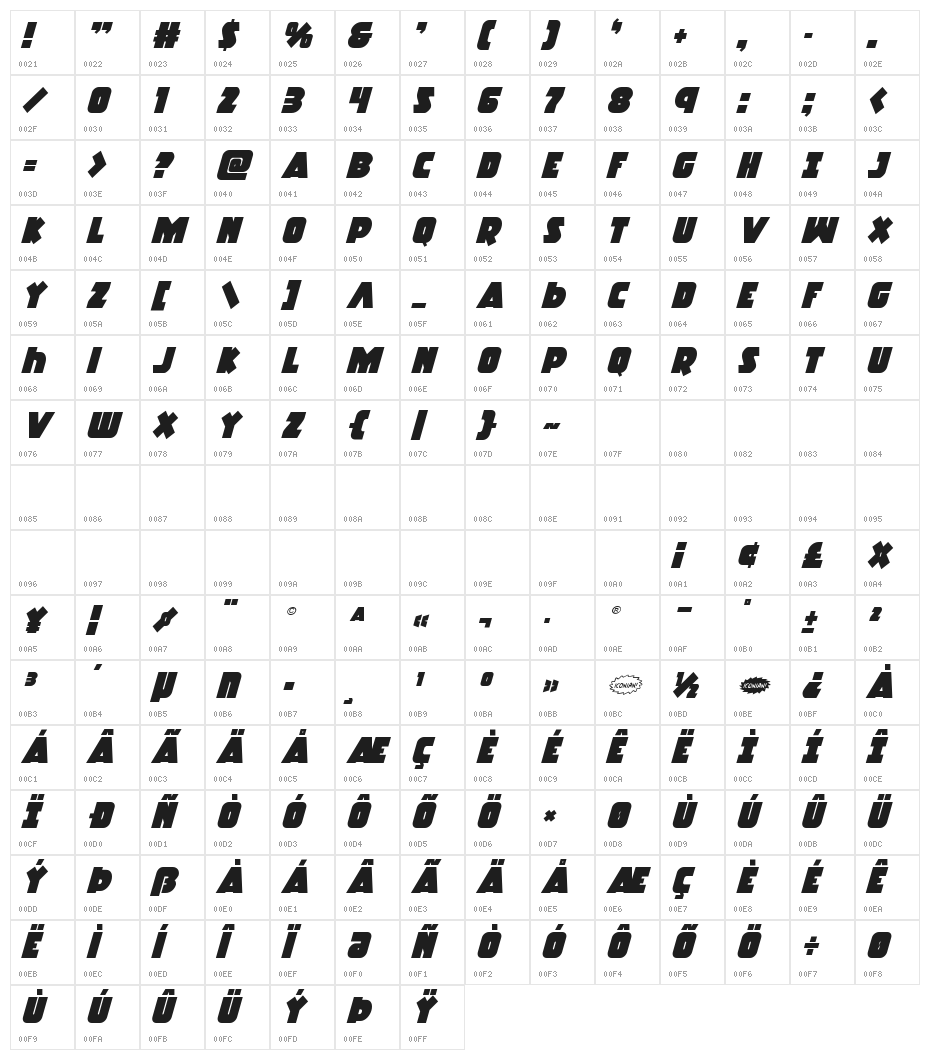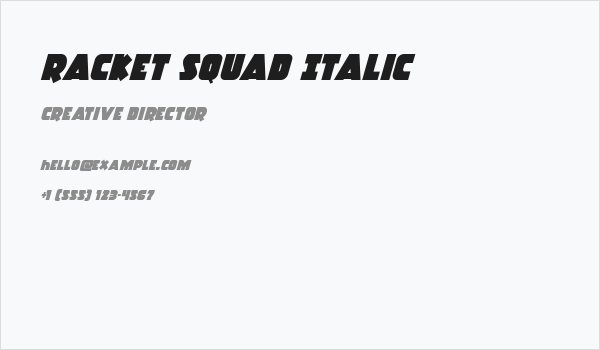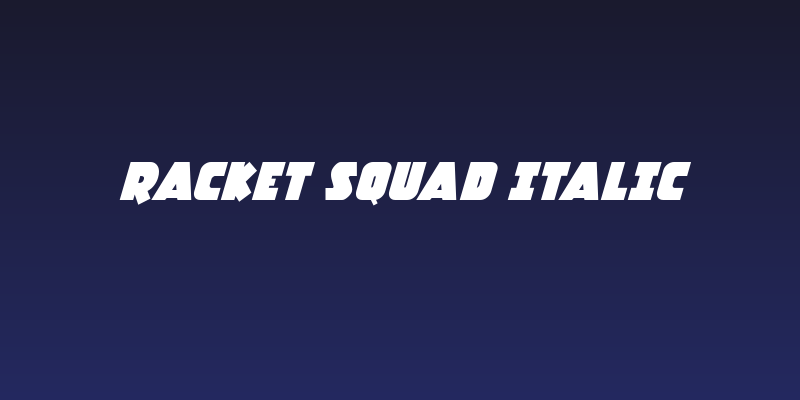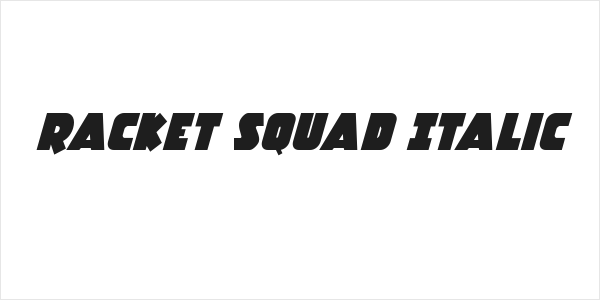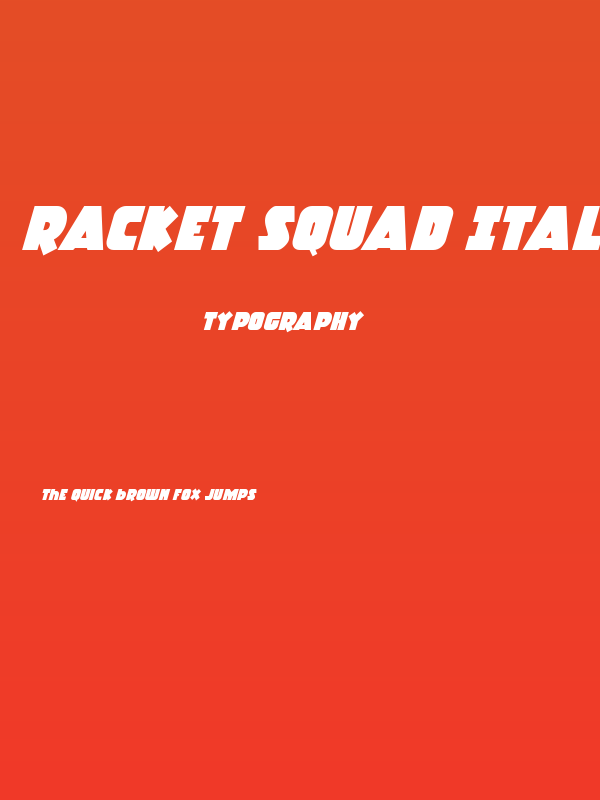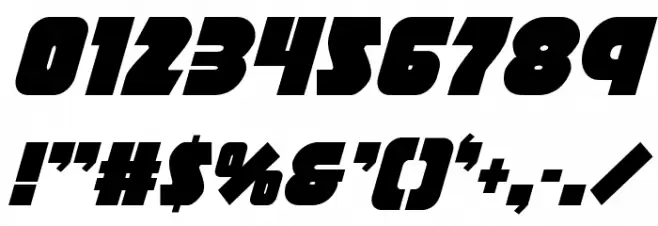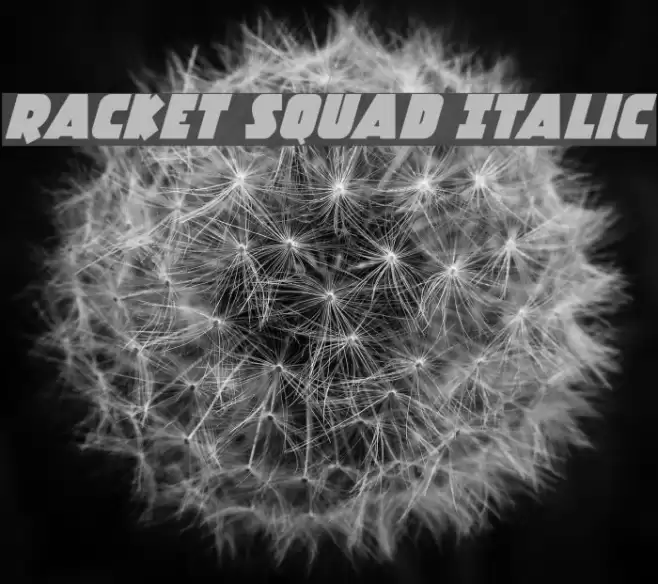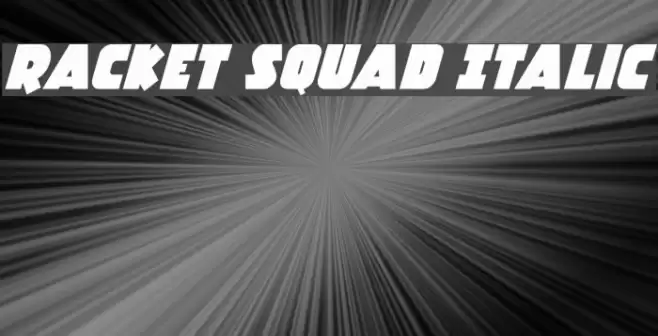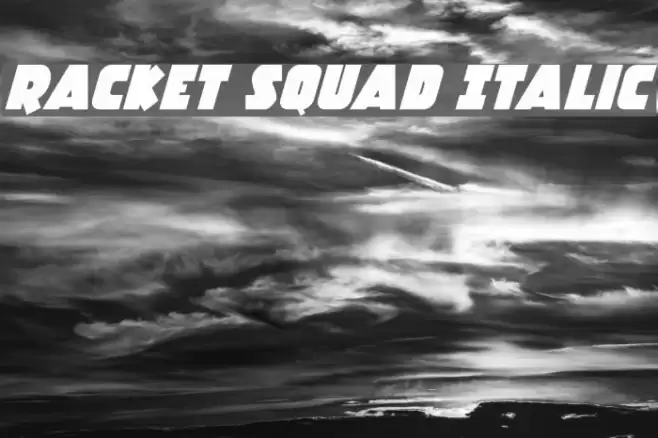
Racket Squad Italic Font
Racket Squad Italic Description
This bold and dynamic font features a strong, italicized style with thick, angular strokes that convey a sense of movement and energy. The characters are tightly spaced, enhancing its bold appearance. The uppercase and lowercase letters maintain a consistent style, with sharp edges and a slightly condensed form. The numerals and special characters follow the same design principles, ensuring uniformity across all glyphs. This font is ideal for projects that require a striking and impactful visual presence.
| Proposed Projects | Perfect for sports branding, dynamic posters, video game titles, and action-themed designs. |